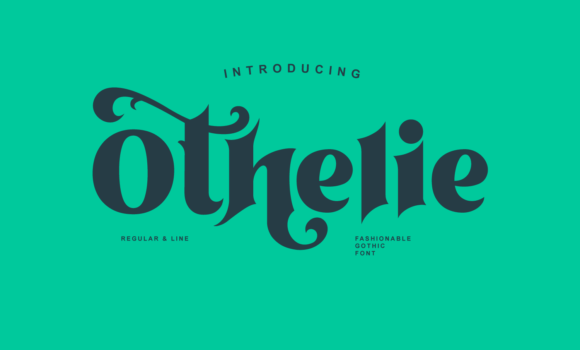
othelie
Othelie Font – Free Download Introduction to Othelie Font Othelie is a fashionable gothic font that will enhance any crafting project. 📸 Preview Gallery 6 images 📌 Product Name Othelie Font 👤 Author creativemedialab 📂 Category Explore ⬇️ Download Othelie